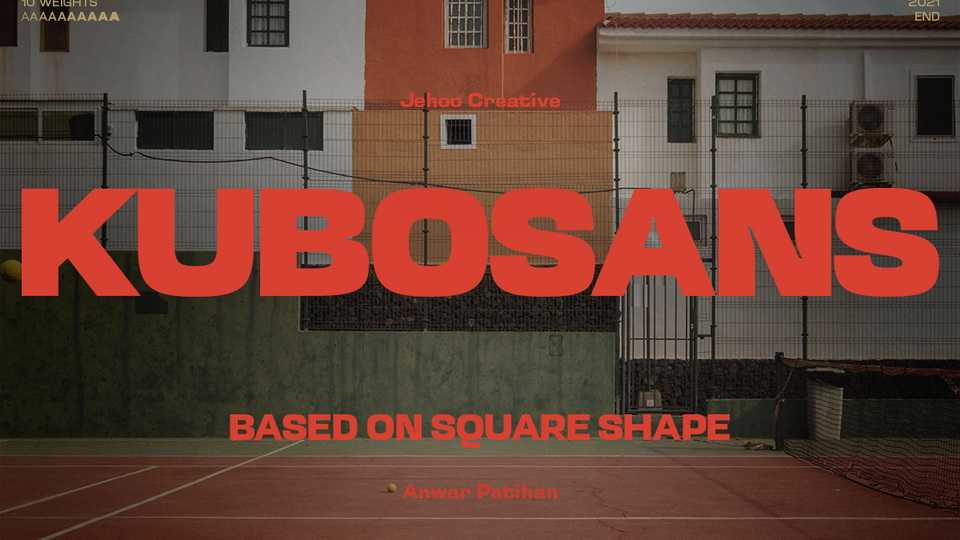
Download Kubo Sans font, a sans serif typeface based on square geometric shapes and subtle as possible. Kubo Sans is designed to be as thick and strong as possible following its basic shape as well as being versatile.
Designer: Jehoo Creative